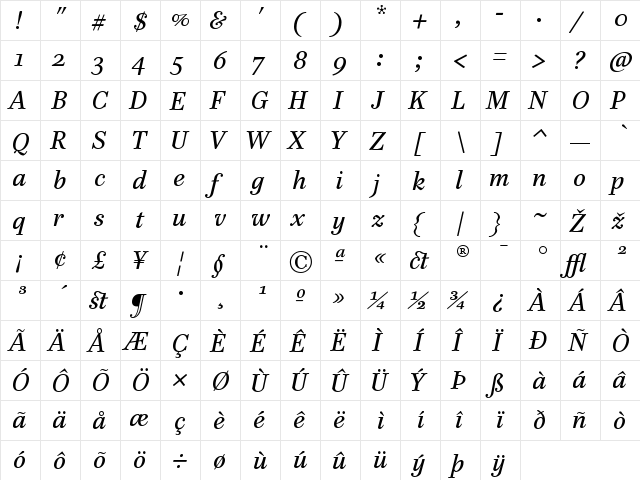
PB12TTP-Italic Regular
Design Context for PB12TTP-Italic Typeface
PB12TTP-Italic takes a measured approach to typography — its balanced proportions and neutral character make it a reliable workhorse for both digital and print work. The slanted form adds forward momentum and visual energy.